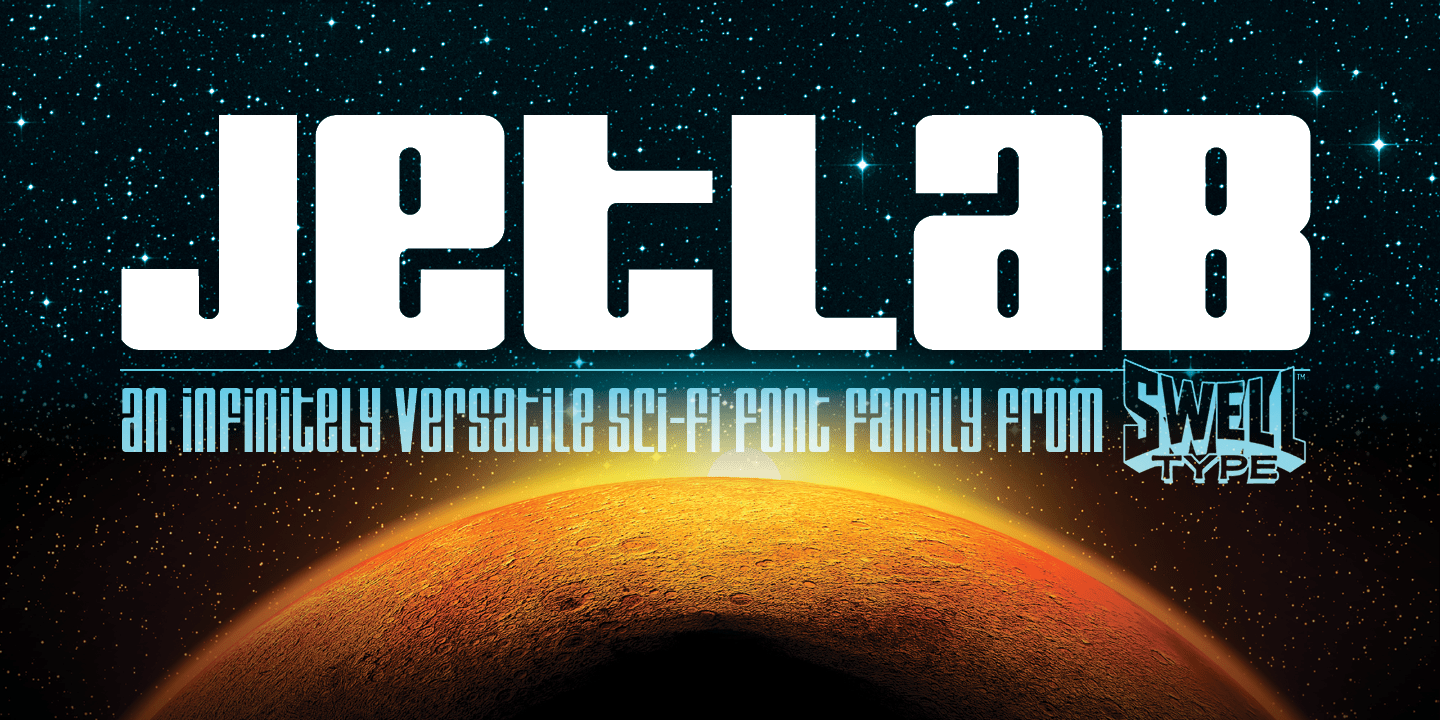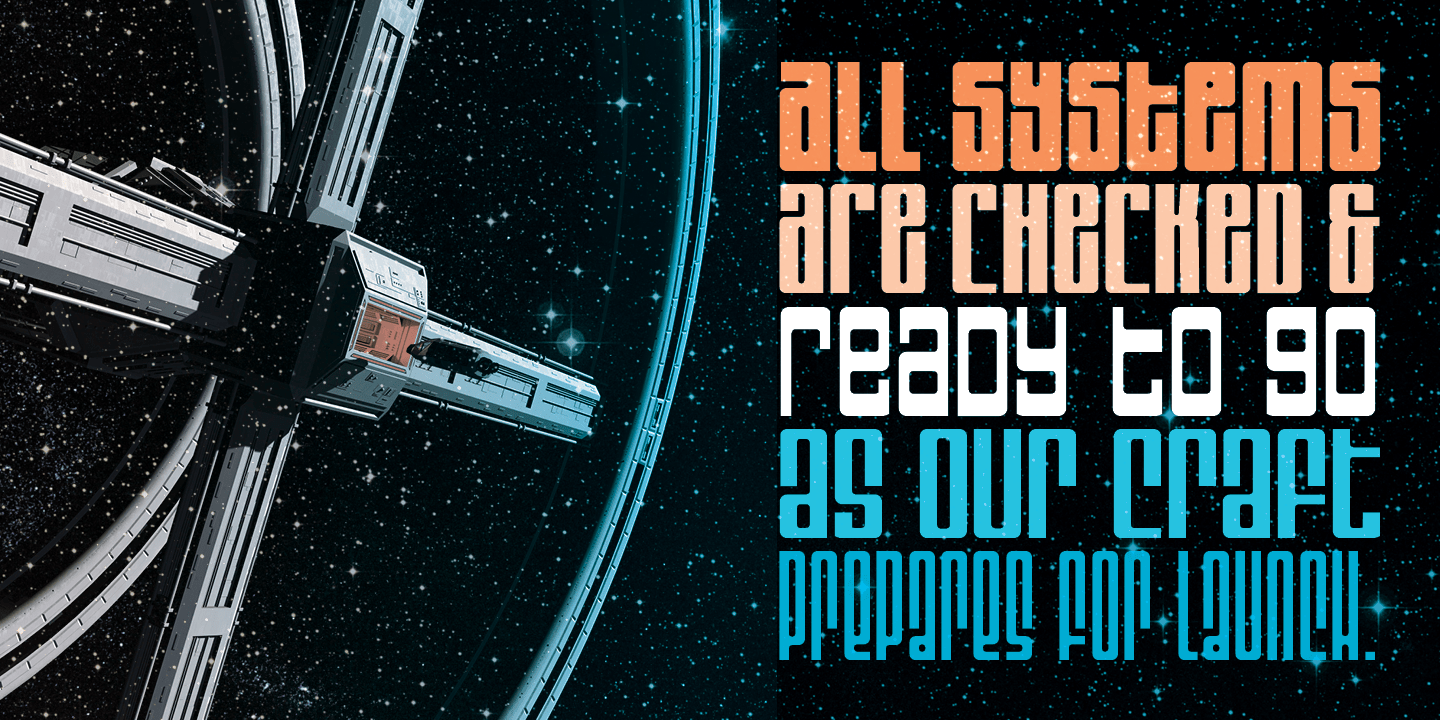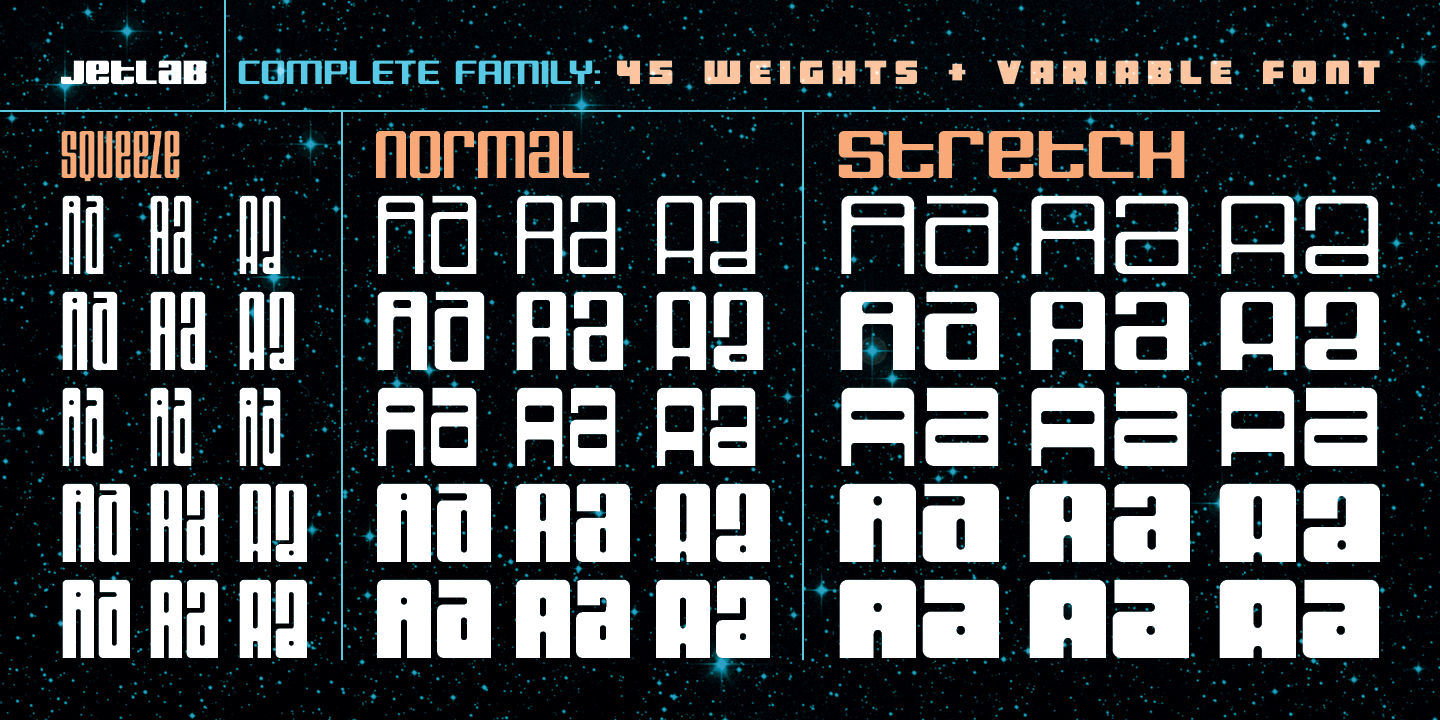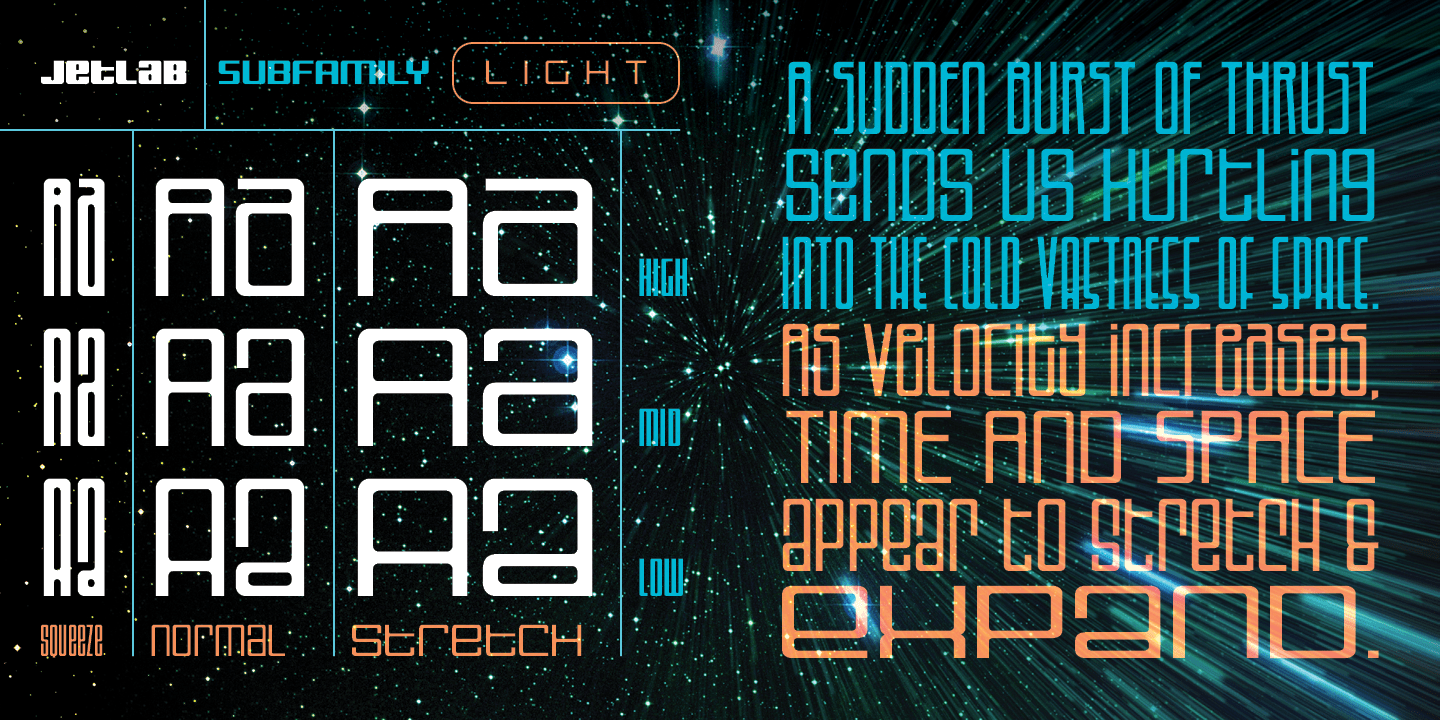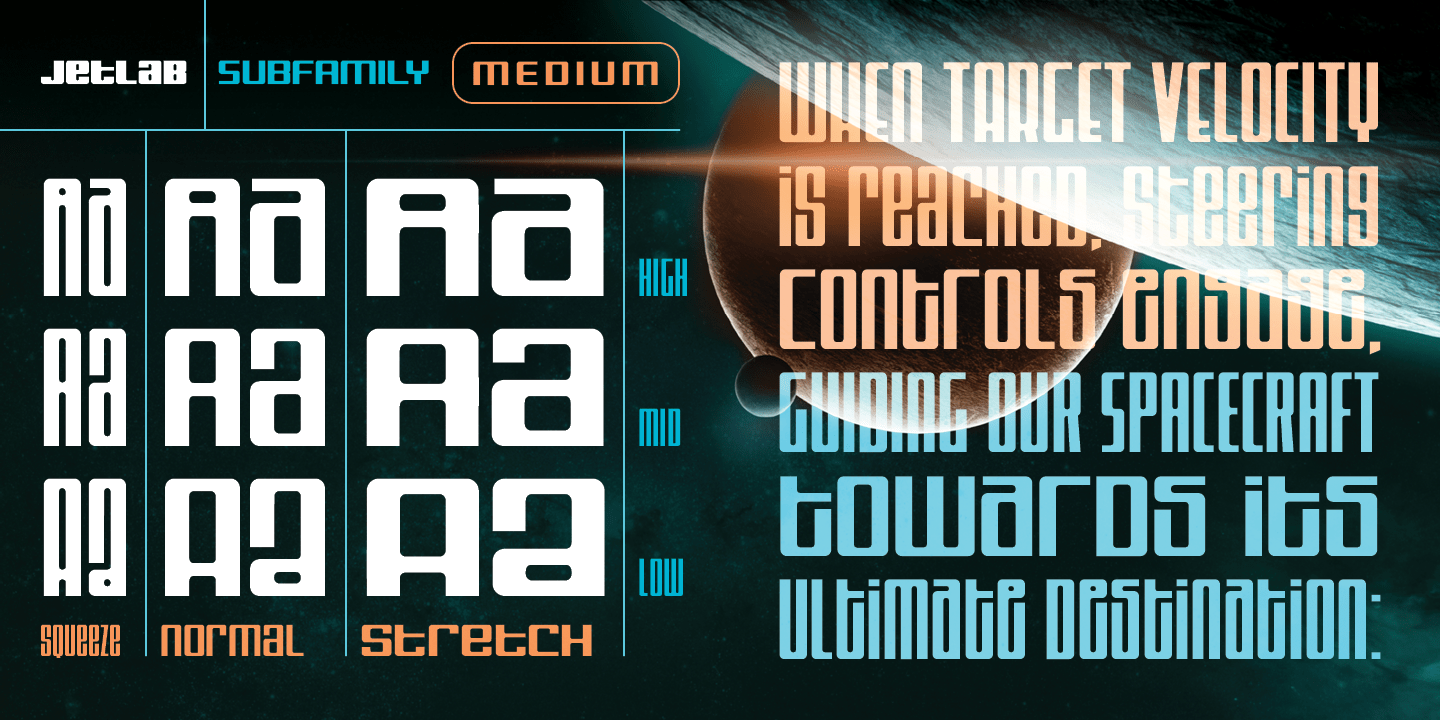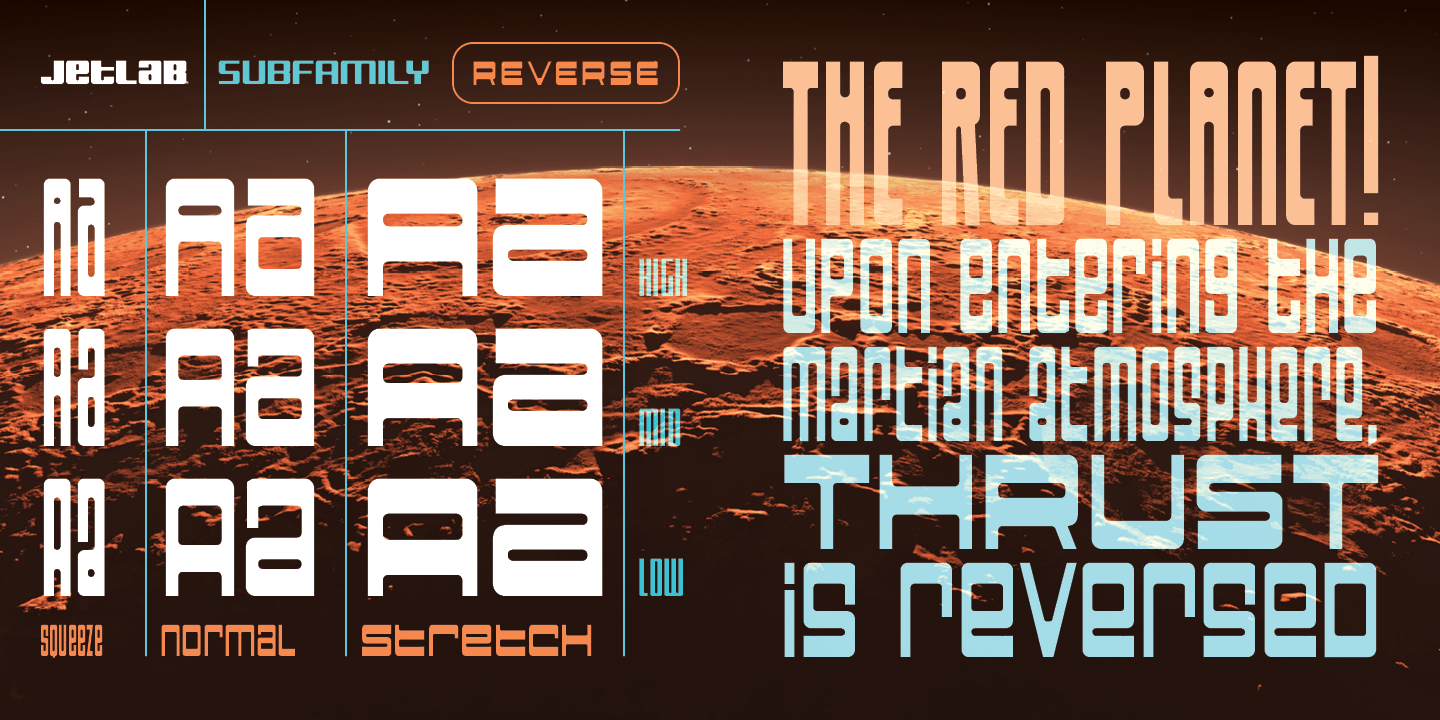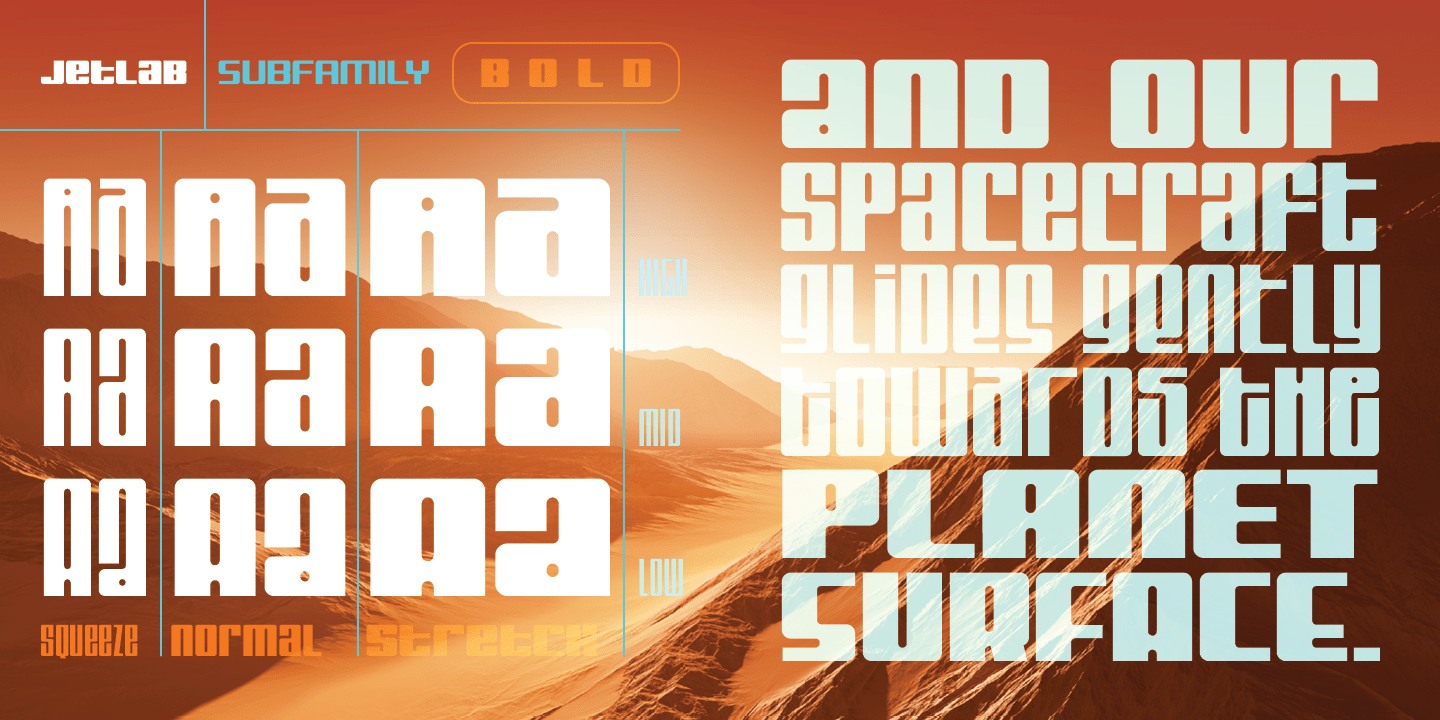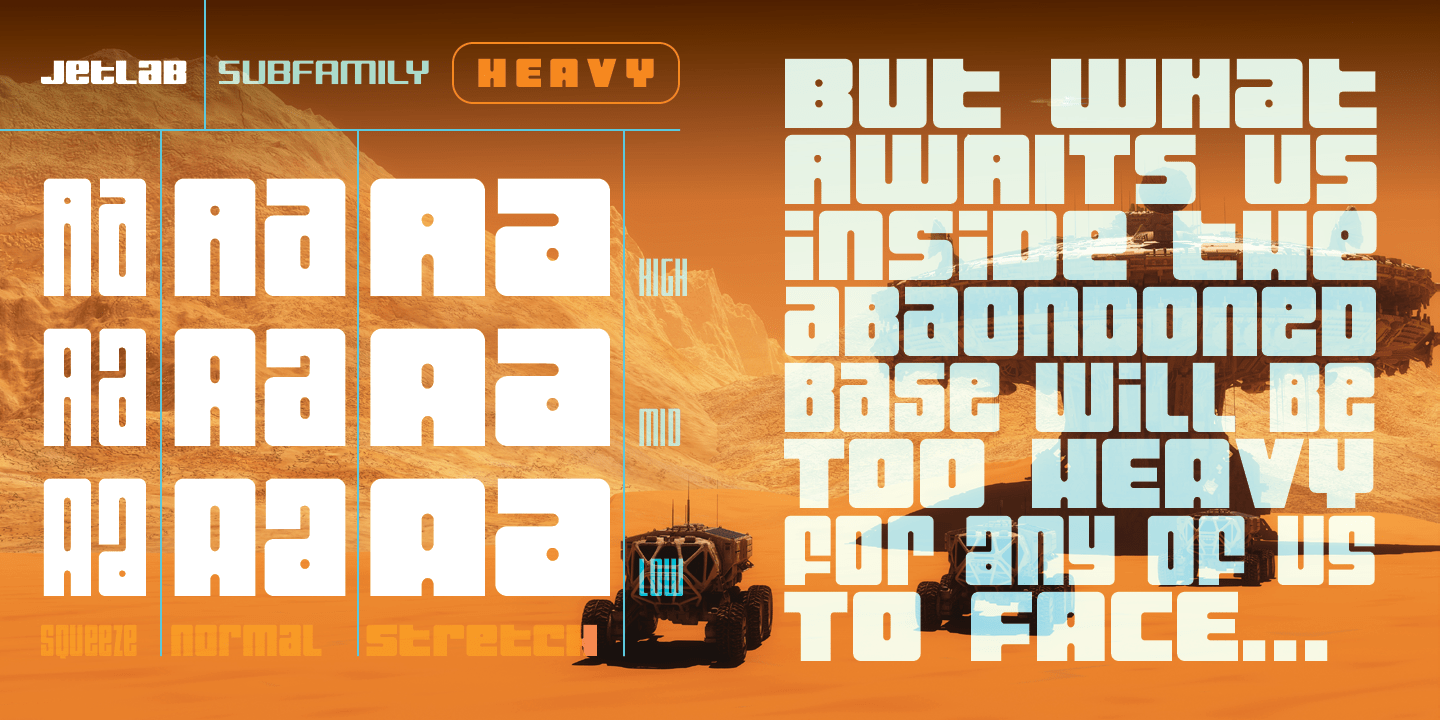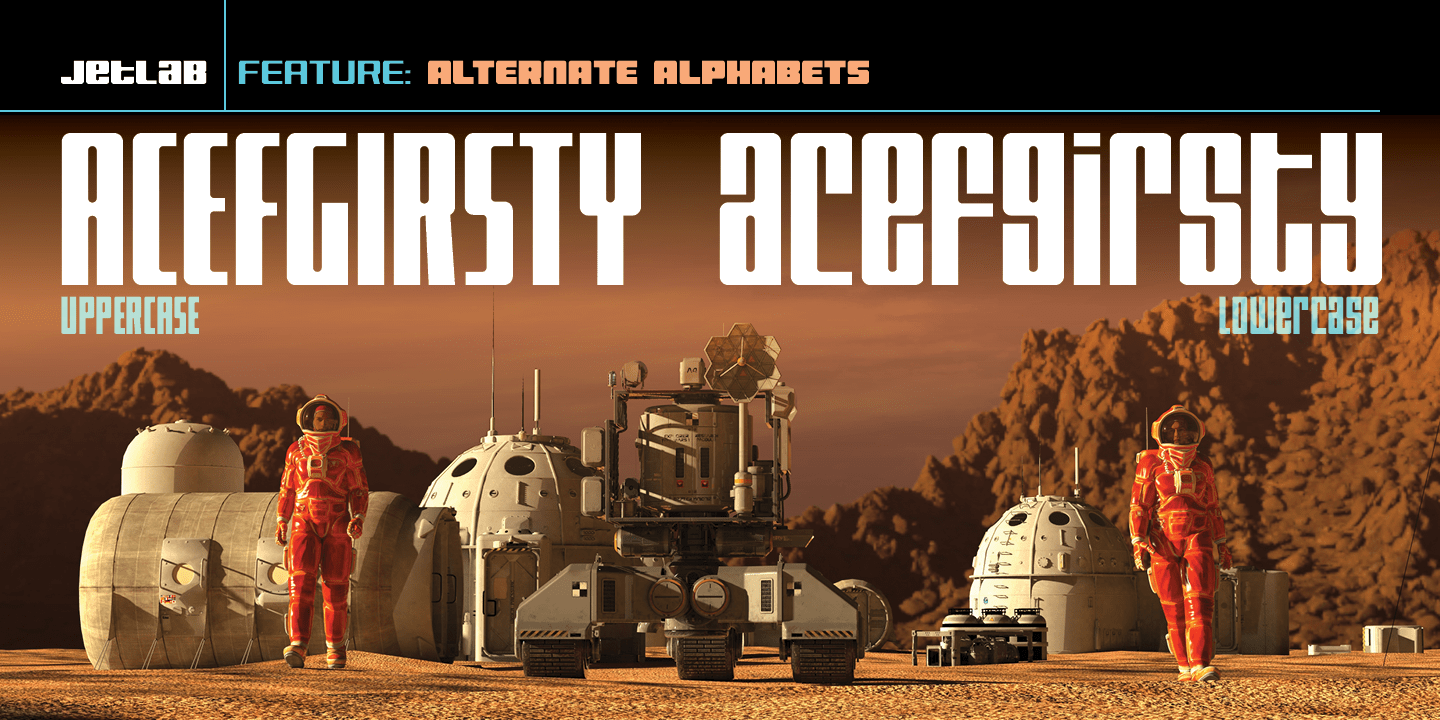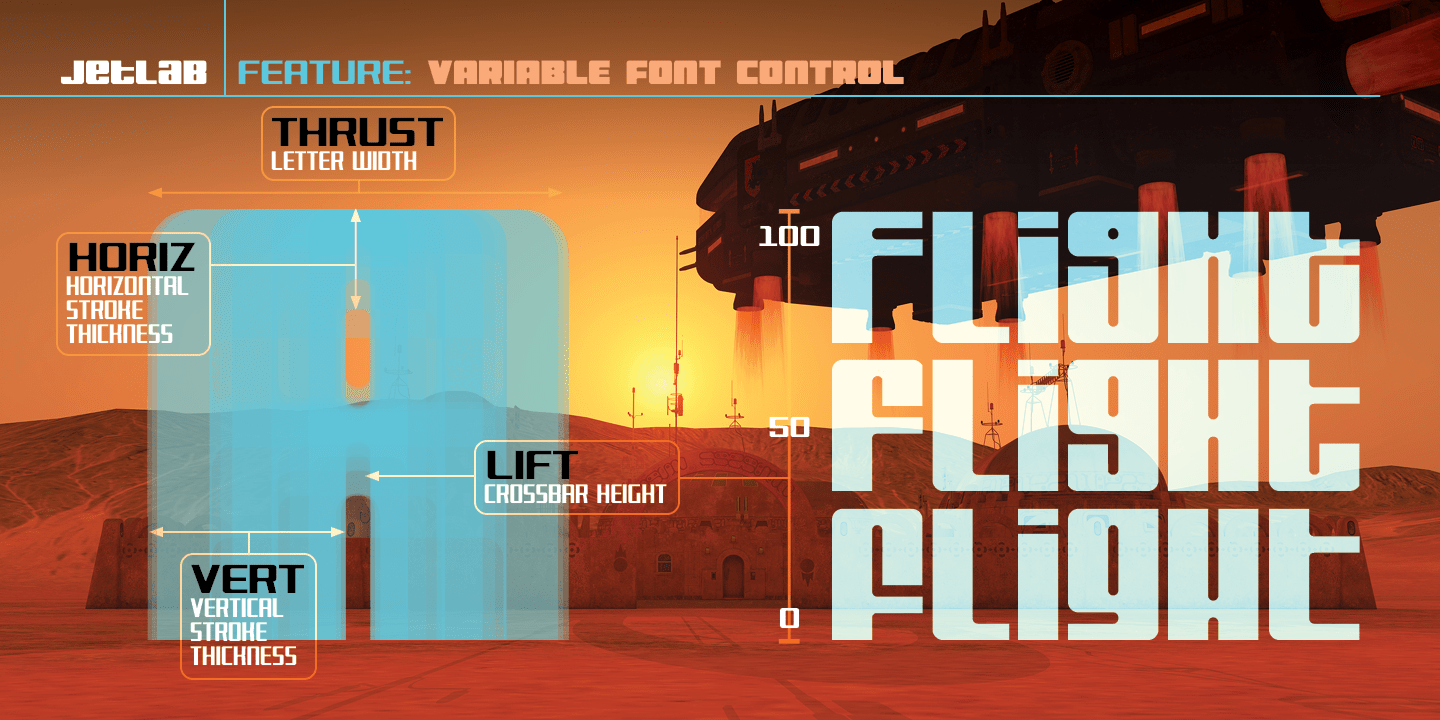
Jetlab
Font Family by Swell Type
Jetlab is a typographic time machine that drops you squarely into the techno-futuristic optimism of the 1960s, 1970s and 1980s!
While certain weights may conjure familiar space race-era logos from the sci-fi movies, board games, sports teams, new wave bands and sneaker brands of the late 20th century, the complete 45-weight Jetlab font family is loaded with modern features to power today's retro-futuristic designs with near-infinite versatility.
Features:
- 45 weights provide widths from Squeezed to Stretched and weights from Light to Heavy, plus Reverse-stress (that's thick horizontal strokes with thin verticals)
- high, medium and low crossbar options
- upper and lowercase letters provide two distinct styles
- a four-axis variable font provides precise control of width, vertical & horizontal weight, and crossbar height